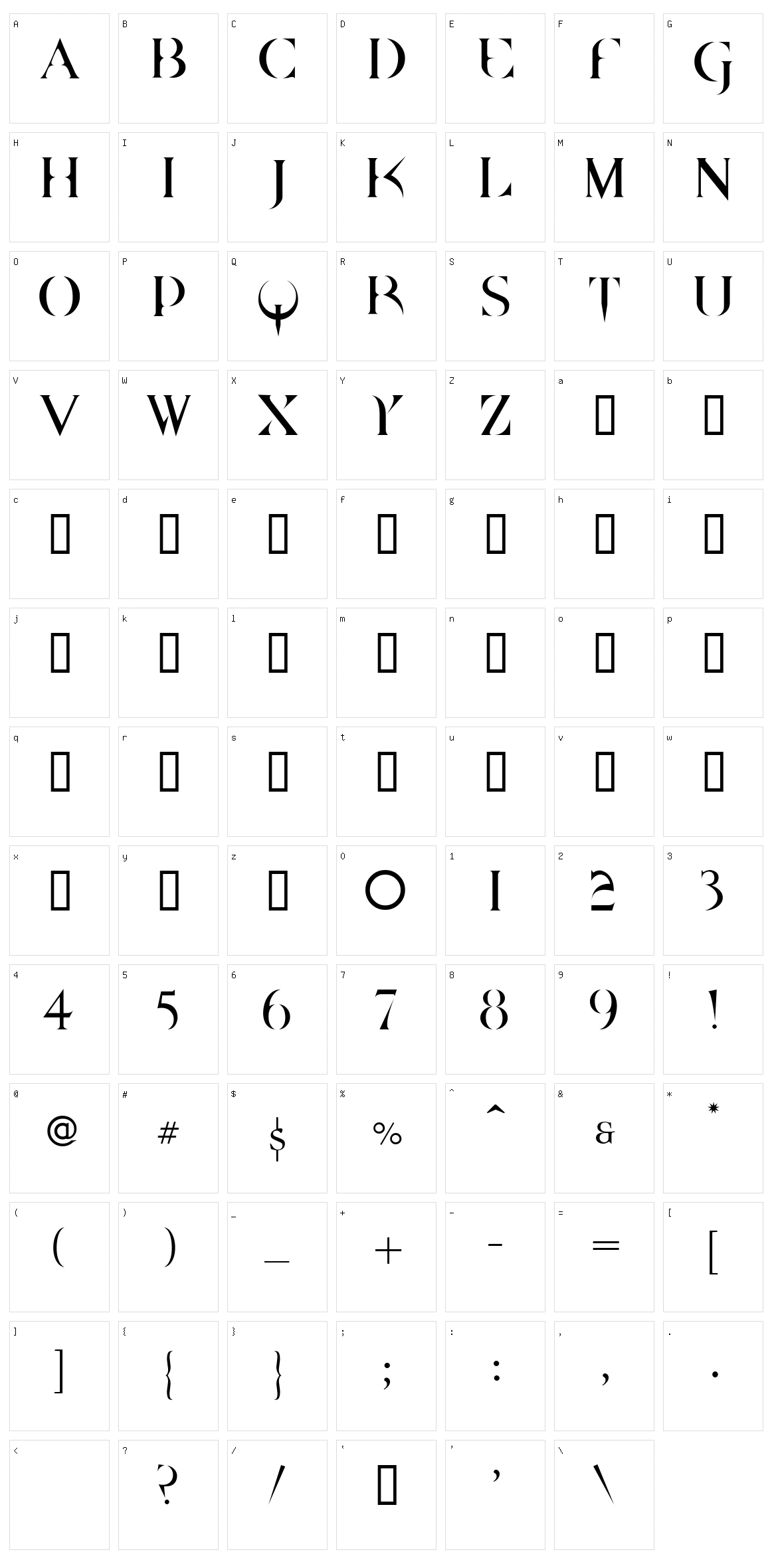
Quake + DpQuake
Designed by: Dead Pete
DpQuake 2.3 - A quake font for the serious Quake freak
[-----------Key combinations for the logos-----------]
[----------------------------------------------------]
[ Q | Quake logo ]
[ q | Quake logo (small) ]
[ ~ | Quake 2 logo ]
[ Alt-0152 | Quake 2 logo ]
[ Alt-0181 | Quake 2 Cracked logo ]
[ Alt-0131 | Quake Arena logo (Fixed) ]
[ Alt-0134 | Quake Arena logo ]
[ Alt-0135 | Quake Arena logo (wide Fixed) ]
[ Alt-0163 | Quake Arena logo (wide) ]
[ Alt-0162 | id Software logo ]
[ Alt-0240 | id Software logo (cracked) ]
[ Alt-0231 | Gear ]
[ Alt-0199 | Lightning logo ]
[ Alt-0222 | Lightning logo (cracked) ]
[ Alt-0164 | Invincibility logo (strait) ]
[ Alt-0167 | Invincibility logo (deformed) ]
The Quake 2 Cracked logo, id Software logo (cracked),
Gear, Lightning logo, and Lightning logo (cracked) are
copyright Sean Johnson and are included in this font
Disclaimer thingy: This is an enhanced version of the
original "QUAKE" font I found on the web. The stylized
"Q" and all other logos are copyright id Software (the
greatest game makers on the face of the planet).